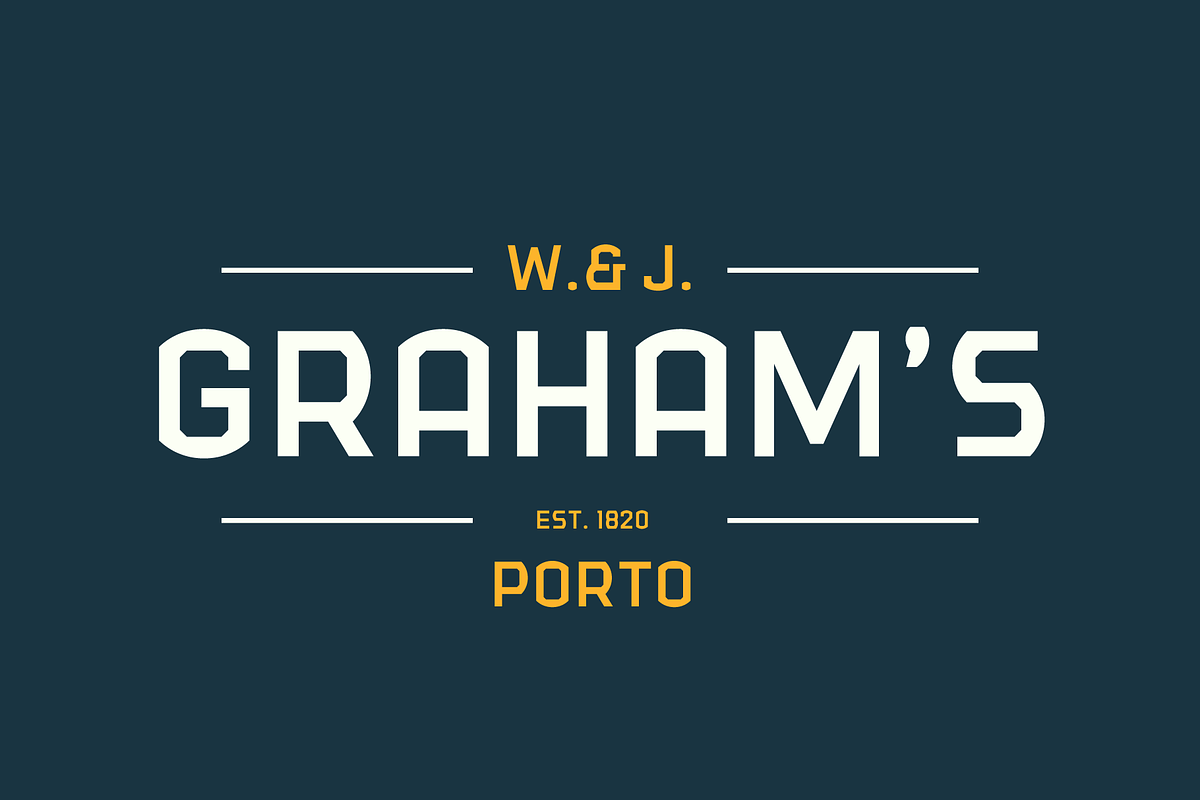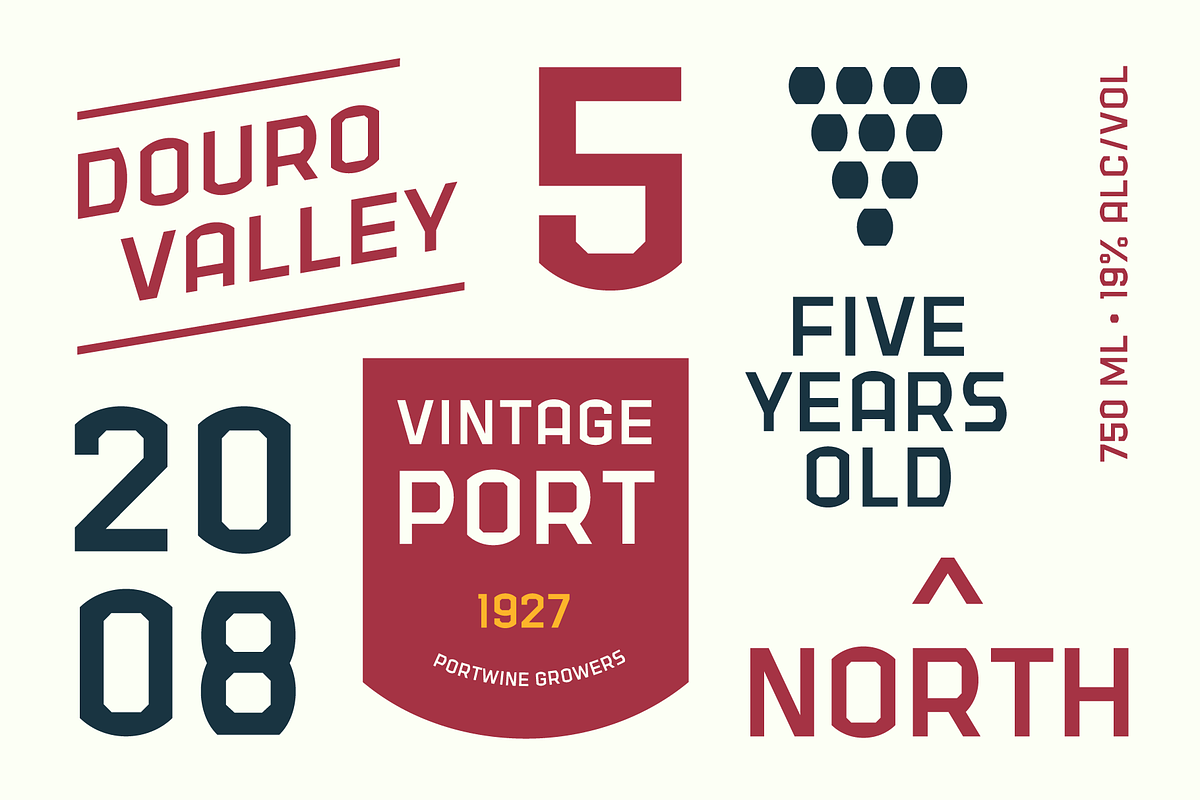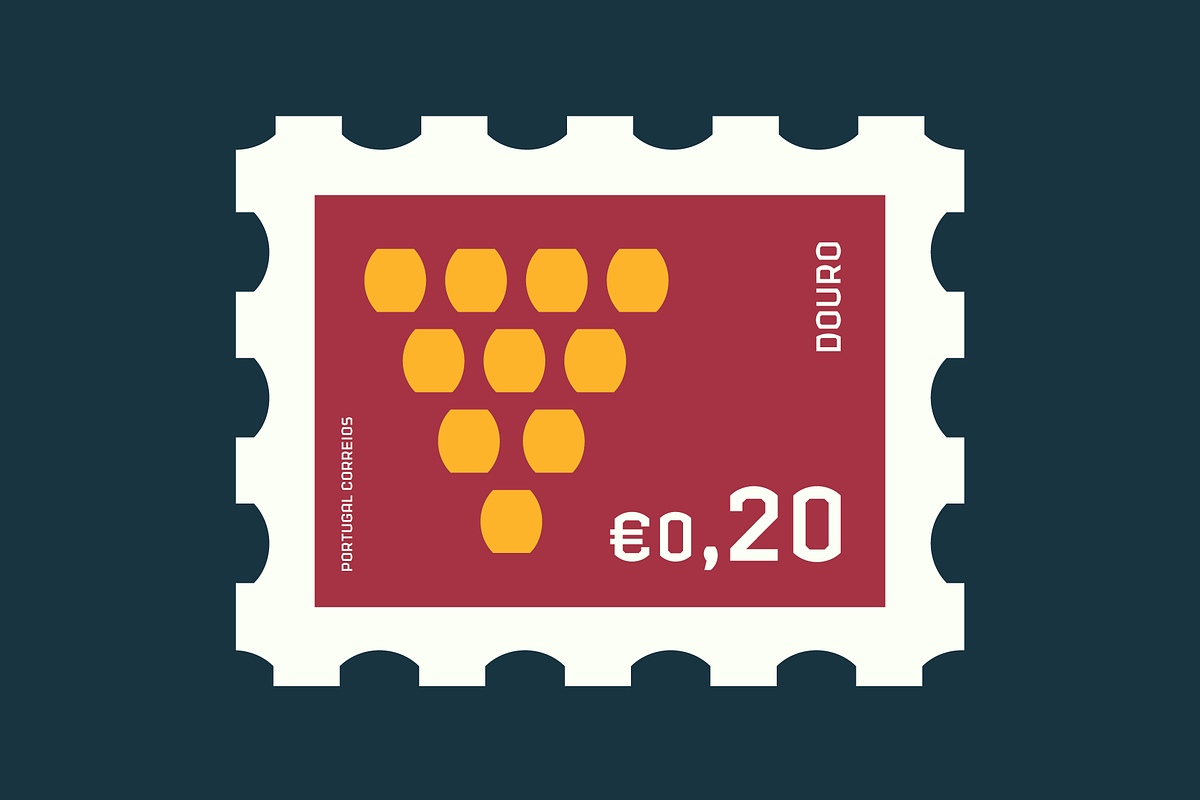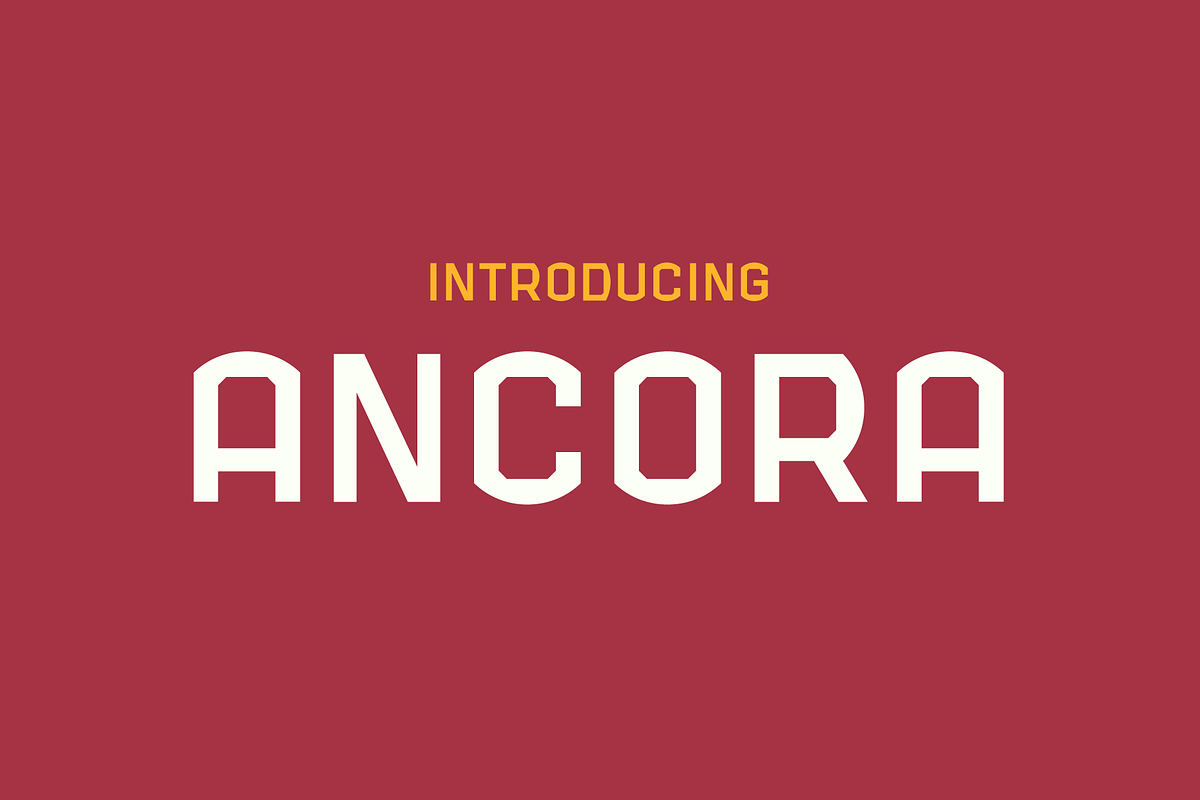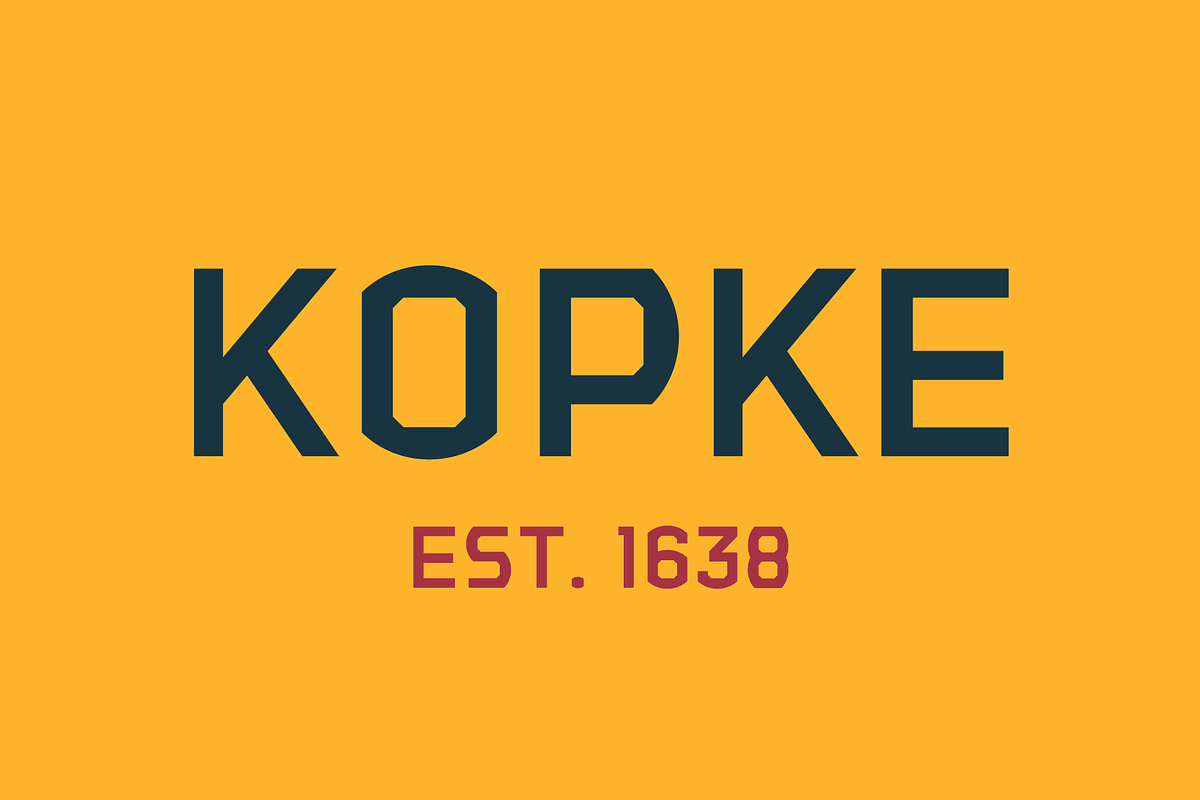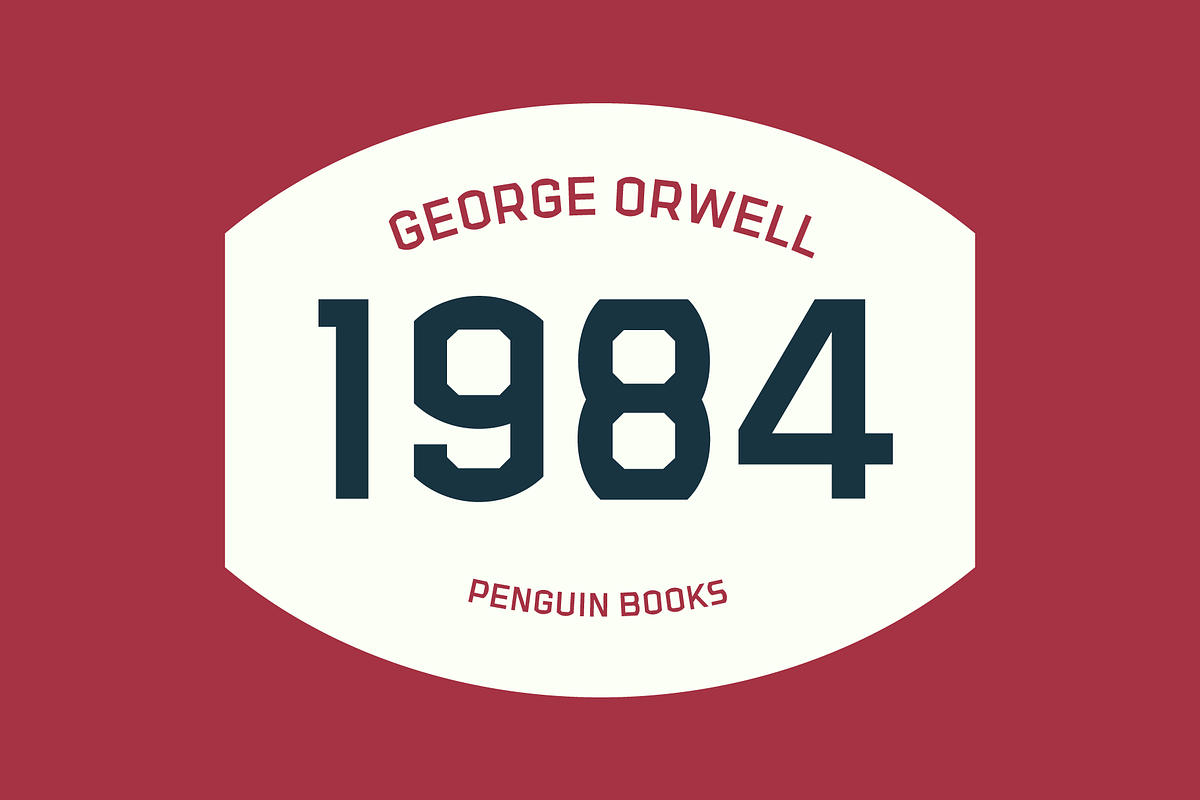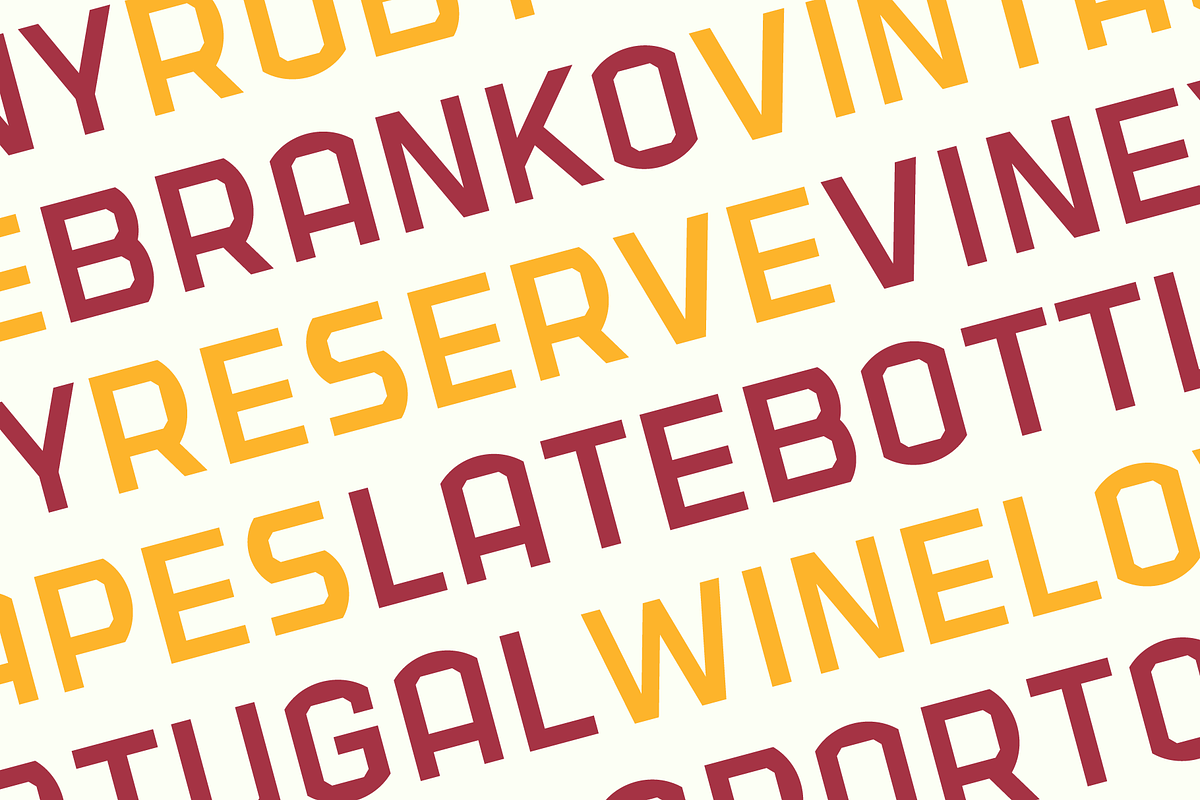
Ancora Typeface
I’m happy to announce the complete version of Ancora, a typeface I designed back in 2013. Ancora is a sans serif typeface with a distinctive style, inspired by the imagery in the production of the famous Port wine, such as boats, barrels, grapes, and bottle labels. Use Ancora to add magazines, packaging, posters, stamps, brands and logos a new taste.